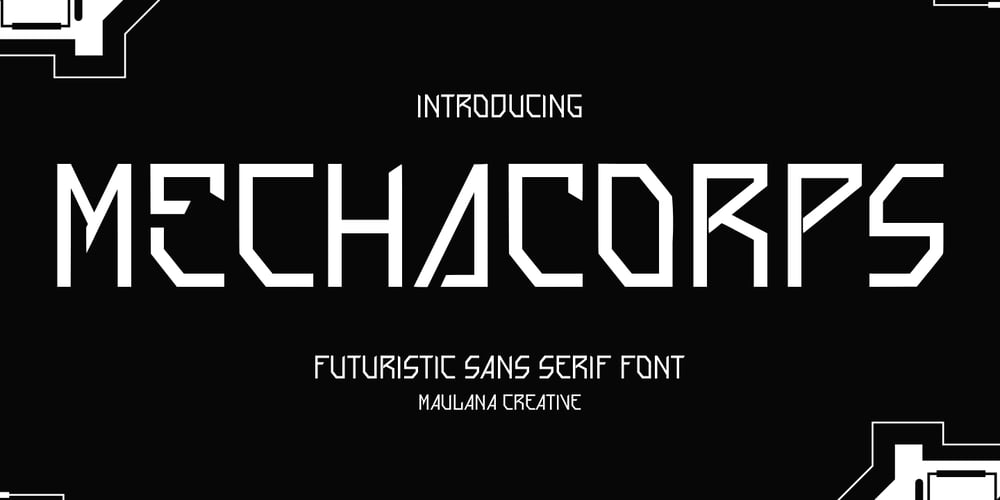
MC Mecha Corps
MC Mecha Corps font
MC Mecha Corps Font Family was designed by Gilang Maulana and published by Maulana Creative. MC Mecha Corps contains 1 styles and family package options. Mecha Corps futuristic sans serif font. Heavy stroke, fun character with a bit of ligatures. To give you an extra creative work. Mecha Corps futuristic sans serif font support multilingual more than 100+ language. This font is good for logo design, Social media, Movie Titles, Books Titles, a short text even a long text letter and good for your secondary text font with script or serif. Make a stunning work with Mecha Corps futuristic sans serif font. Cheers, Maulana Creative